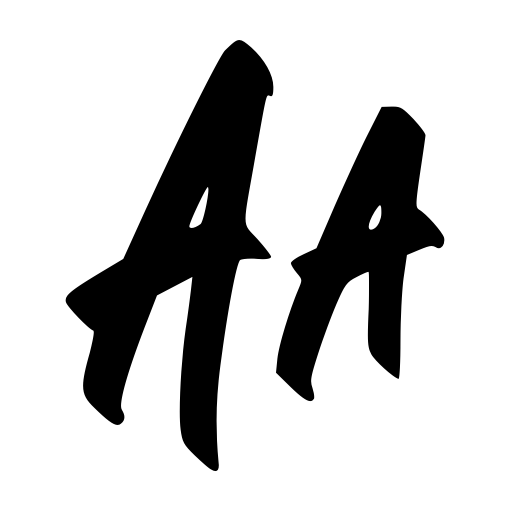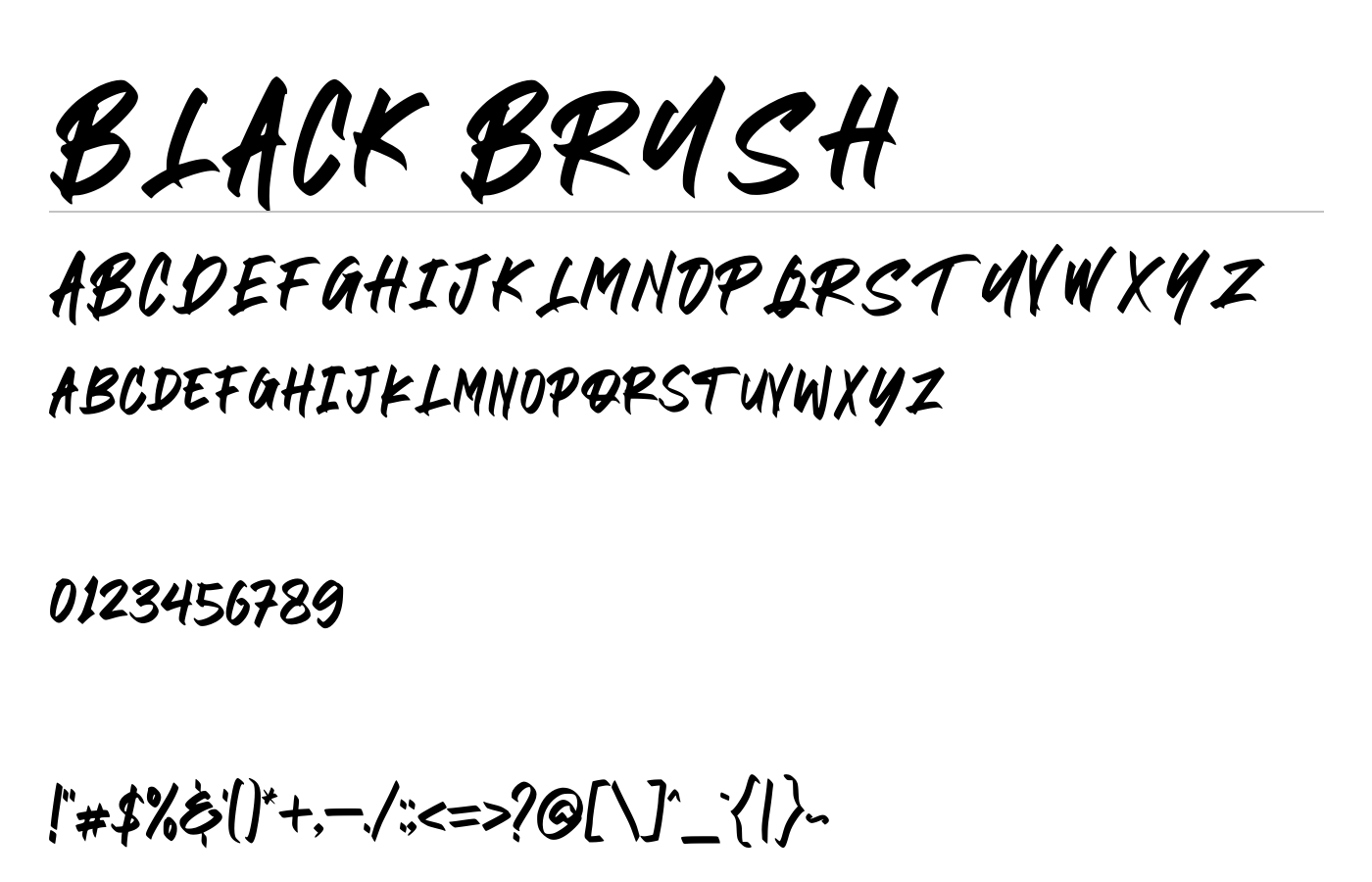
BLACK BRUSH is a bold, expressive brush script font with a casual and energetic feel. Its strong, dynamic strokes and slightly irregular shapes give it a handwritten, artistic quality perfect for adding a lively, personal touch to logos, posters, and creative branding. This font works especially well where a striking, informal style is desired to convey creativity and vitality.
BLACK BRUSH Font
About BLACK BRUSH Font
| Font family | BLACK BRUSH Font |